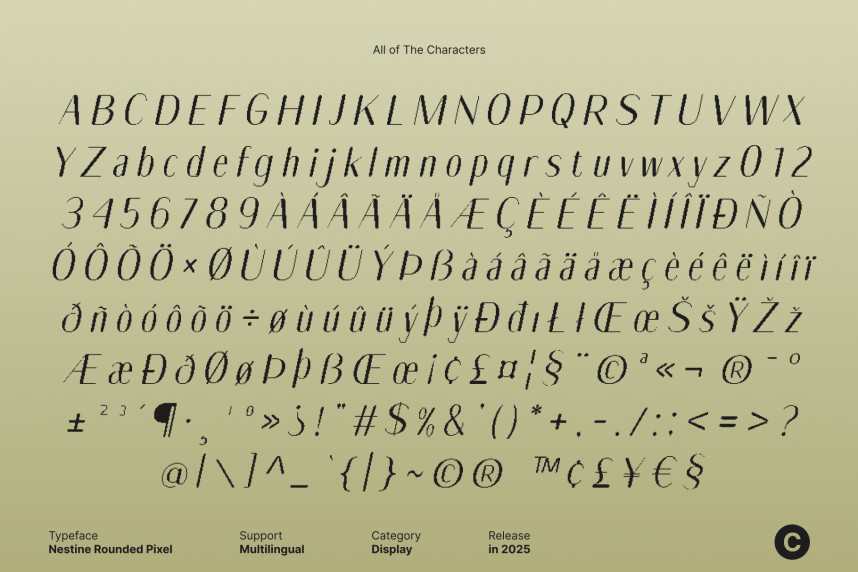
Nestine Rounded Pixel Font
Nestine Rounded Pixel Font – Modern Sans Serif Display Font with Pixel Precision Clean Lines for Sleek, Classic Sophistication. This is a modern sans serif display font designed with clean, precise lines that convey professionalism and timeless elegance. Its balanced letterforms create a polished and refined appearance, making it perfect for contemporary designs that require clarity, style, and sophistication.